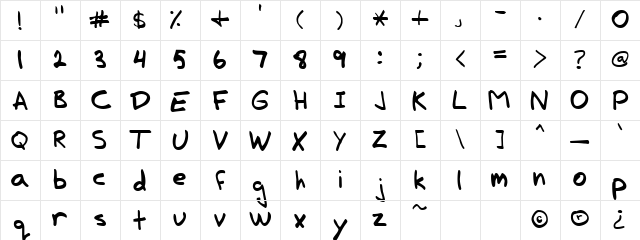
Lucas Normal Free Font
Lucas Normal
Lucas Family
Lucas Normal
Design Context for Lucas
Lucas is a composed and adaptable typeface that performs quietly and consistently across a wide range of design contexts.